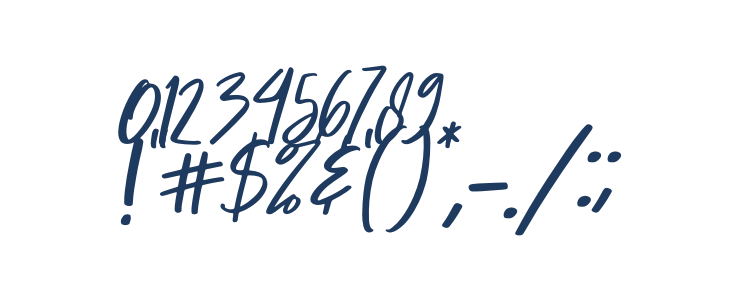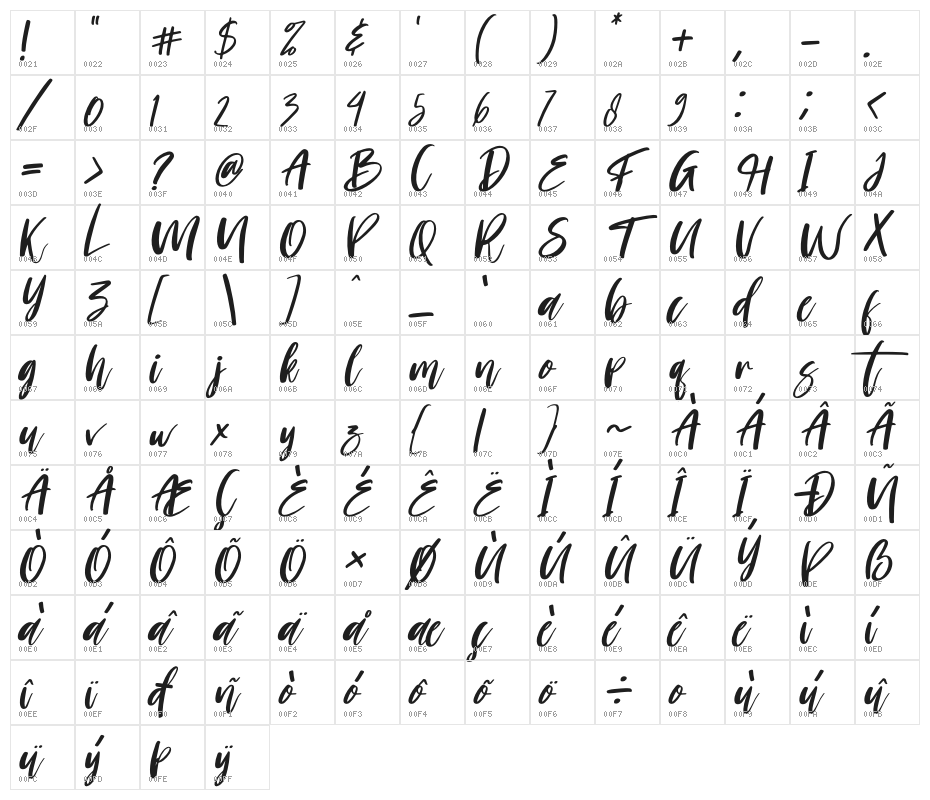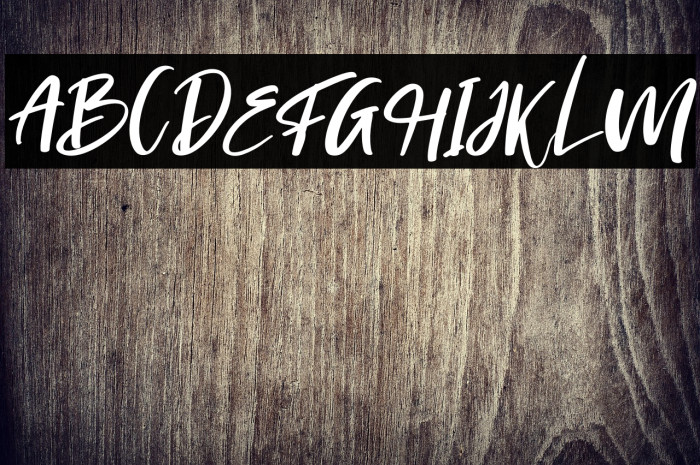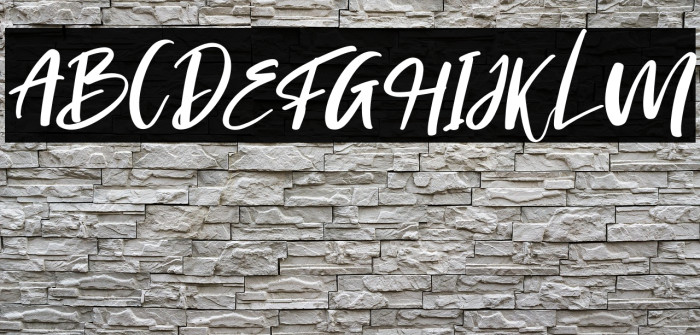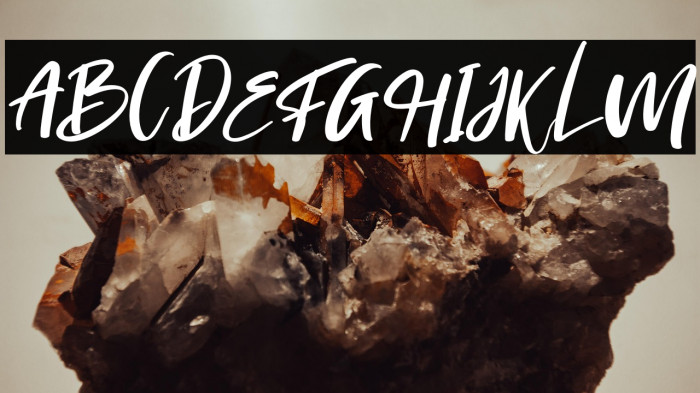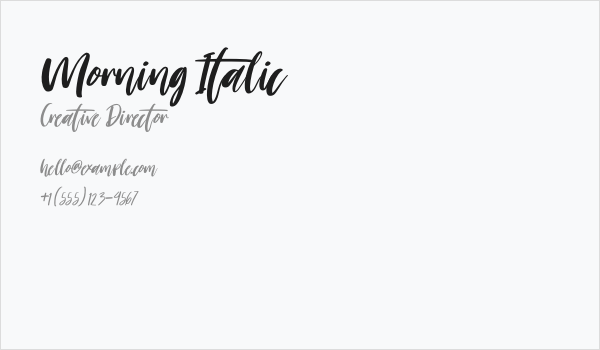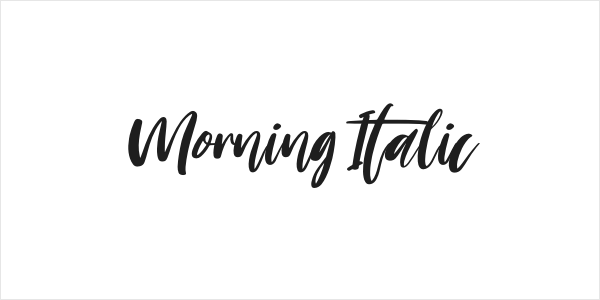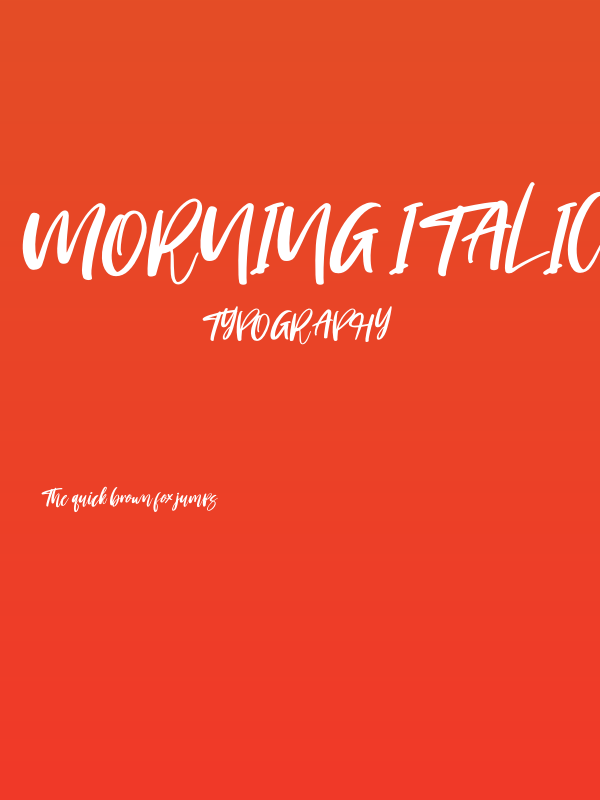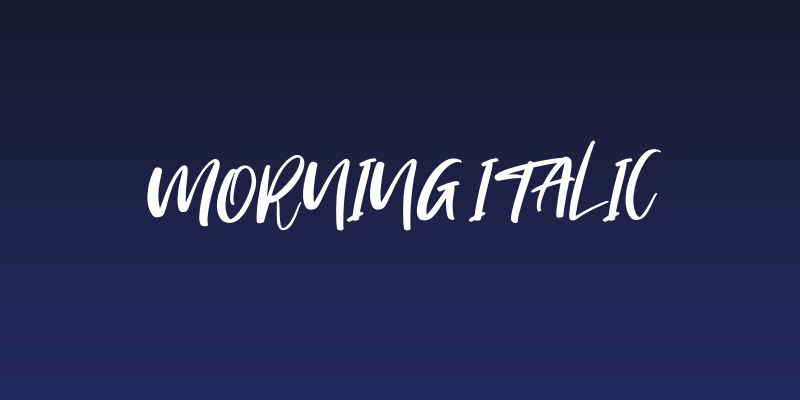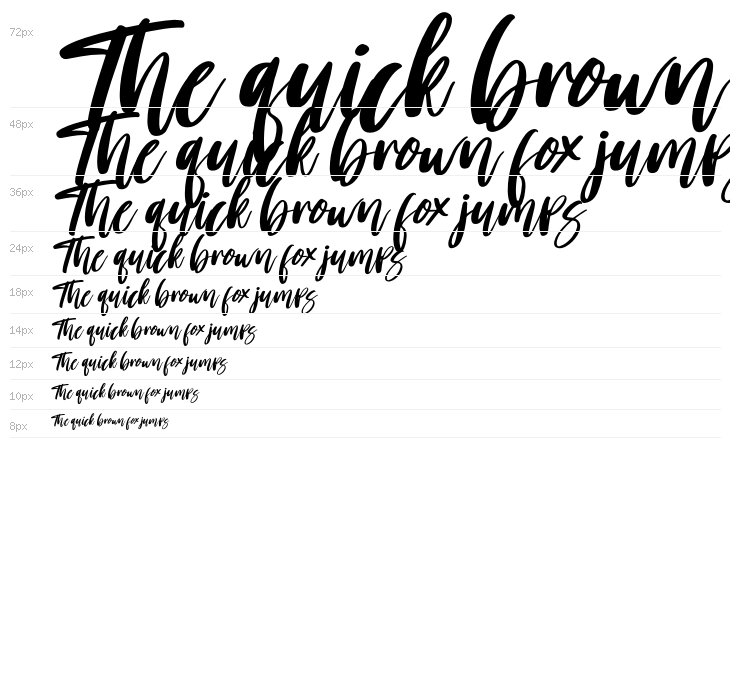
Morning Italic Font
Morning Italic Description
This font exudes a lively and dynamic energy with its bold, flowing script style. The characters are crafted with a brush-like appearance, giving them a handwritten feel that is both casual and elegant. The uppercase letters maintain a consistent height, while the lowercase letters feature playful loops and curves, adding to the font's charm. Numbers and special characters are equally expressive, maintaining the font's cohesive style. The overall design is perfect for projects that require a personal touch, such as invitations, greeting cards, or branding materials that aim to convey a sense of warmth and approachability.